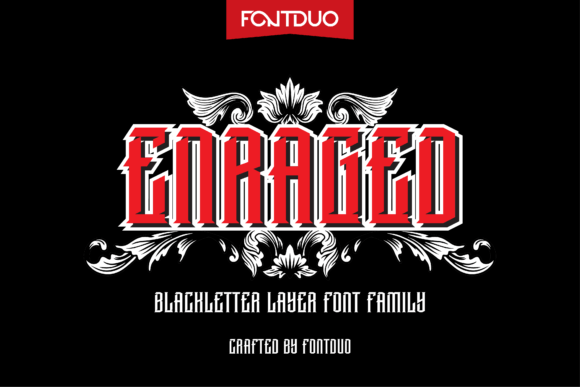
Indulge in the allure of a bygone era with Enraged, the blackletter font that exudes vintage charm. Its intricate strokes, reminiscent of ancient manuscripts, will cast a captivating spell on your designs. Dive into a world where the past and present intertwine seamlessly, where the allure of retro meets the sophistication of modern elegance.
Enraged is more than just a font; it's an artistic masterpiece that will transform your creative endeavors. Picture yourself crafting product packaging that whispers tales of forgotten times, or designing brand identities that evoke a sense of timeless allure. With Enraged, you'll command attention and leave an unforgettable mark on all who behold your creations.
Beyond its aesthetic appeal, Enraged is a versatile workhorse that caters to a myriad of design needs. Its bold and daring typography commands attention, making it perfect for headlines, logos, and any other element that demands to be seen. Unleash your imagination and explore the endless possibilities that Enraged holds.
Join the ranks of discerning designers who recognize the power of typography. Embrace the captivating allure of Enraged and elevate your designs to new heights. Let its vintage charm and modern sophistication ignite your creativity and leave an enduring legacy in the world of design.